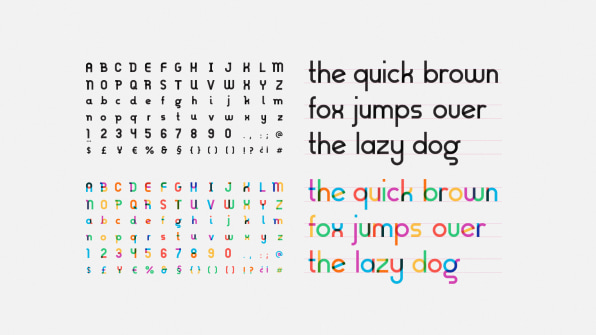
Although Gilbert Baker, LGBT activist and creator of the Rainbow Flag, died earlier this month, his legacy lives on more ceremoniously than most: in the form of a flag that symbolizes gay pride, diversity, and inclusion that is still flown 40 years after its conception. Now, it also take the form of a typeface. Gilbert, a font created by advertising firm Ogilvy & Mather and the foundry Fontself, is a playful, curvaceous font formed, quite literally, from the stripes of the Rainbow Flag.
The two design teams worked in partnership with the New York-based film festival NewFest and NYC Pride, the organization behind the city’s Pride Festival, to come up with the font. The lively results—which borrow from the six flag colors—debuted last week, but will be applied all over the city during Pride Month in June, as NYC Pride plans to use it in its events materials, as well as in October during Newfest. A group of Gilbert Baker’s friends will also use the font for a memorial they are organizing in Baker’s honor in New York on June 14, which is also National Flag Day.
It’s easy to imagine Gilbert’s chunky shape and cheerful aesthetic looking nice on signage and other materials for the festivals—as well as Ogilvy & Mather’s lovely animation, which configures the stripes into something resembling a subway map before settling into letters. That sense of connectedness and solidarity is emphasized in the translucent colors, too, which create new colors as they overlap. Even though Baker’s original eight-color flag was reduced to six due to manufacturing limitations, the different stripes still represent an acceptance of all people. As Baker put it in an interview with the Museum of Modern Art in New York, where his flag is part of the permanent collection, “The rainbow is so perfect because it really fits our diversity in terms of race, gender, ages, all of those things.”
It’s also what makes the font so perfect: The type translates the symbology of the flag into actual language, rendering it into a medium for expressing the same type of messaging through a different form of communication. In this case, the medium is the message. Download the font for free here.